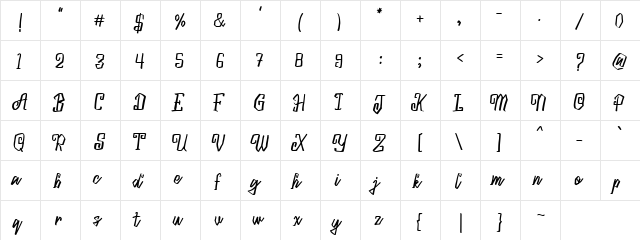
Blacky Sambat Regular
| Foundry | Weape Studio |
| Designer | Wahyu Andi Prasetiyo |
Design Context for Blacky Sambat Typeface
Blacky Sambat is a composed and adaptable typeface that performs quietly and consistently across a wide range of design contexts.